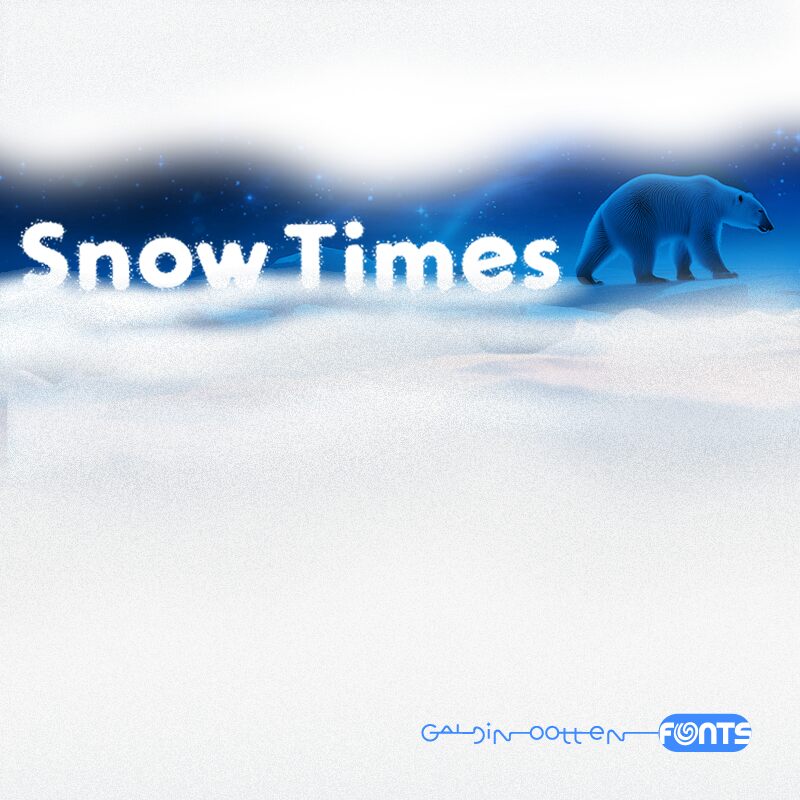
Snow Times
Snow Times captivates with its bold, eroded style, evoking a sense of playful whimsy. The unique texture gives it a rugged charm, making each letter appear as if shaped by the elements themselves. This font's striking appearance is both eye-catching and memorable, infusing designs with personality and character.
Perfect for winter-themed graphics, festive marketing materials, or any project aiming for a fun yet edgy vibe, Snow Times excels where creativity meets functionality. Its robust presence ensures that it stands out in titles and headlines, making it an excellent choice for anything from event promotions to unique branding initiatives. Embrace the snow-kissed allure of Snow Times to elevate your visual storytelling.